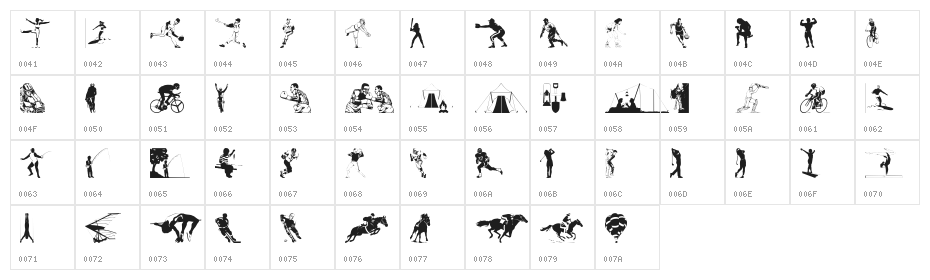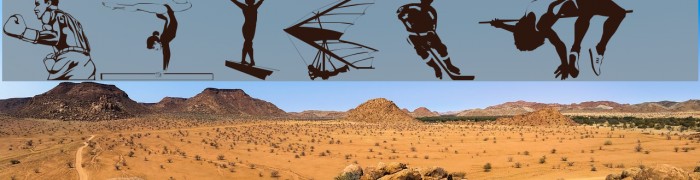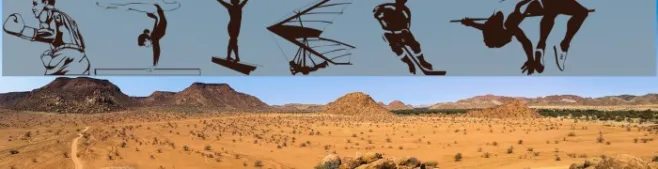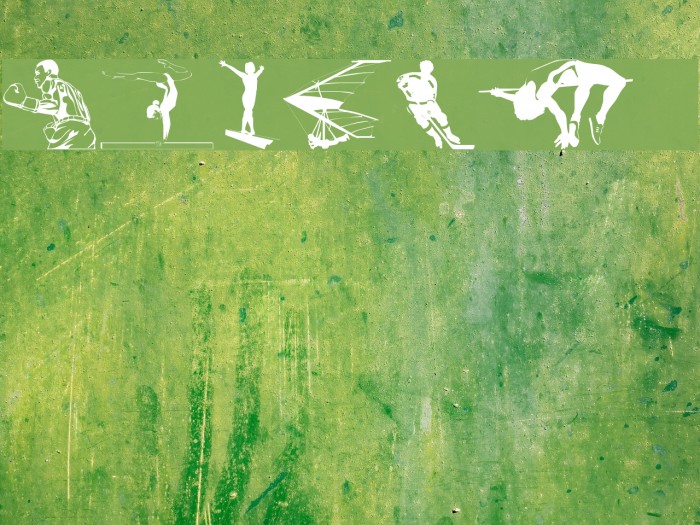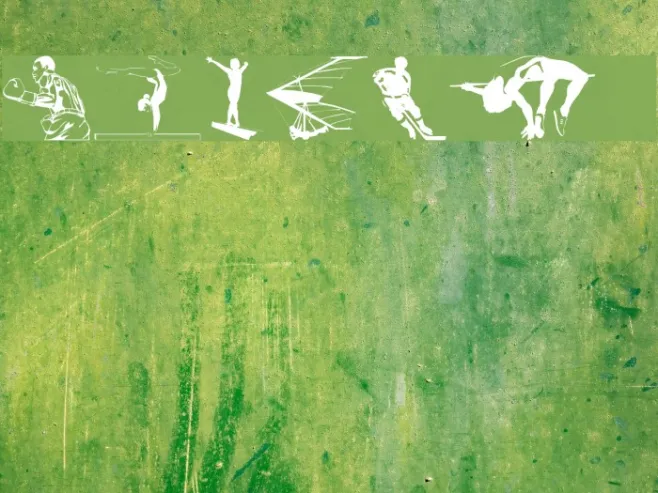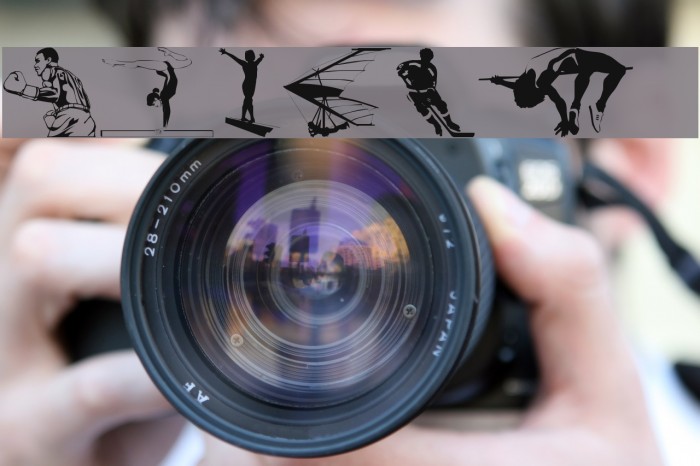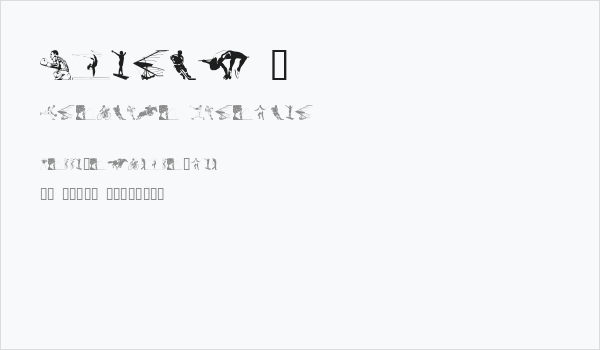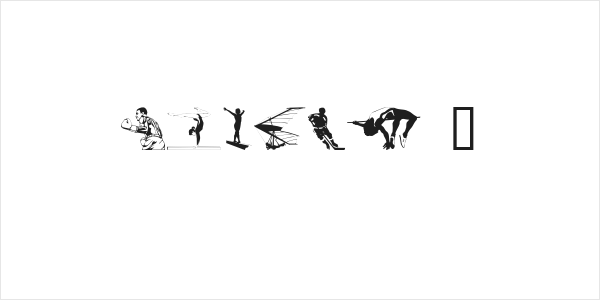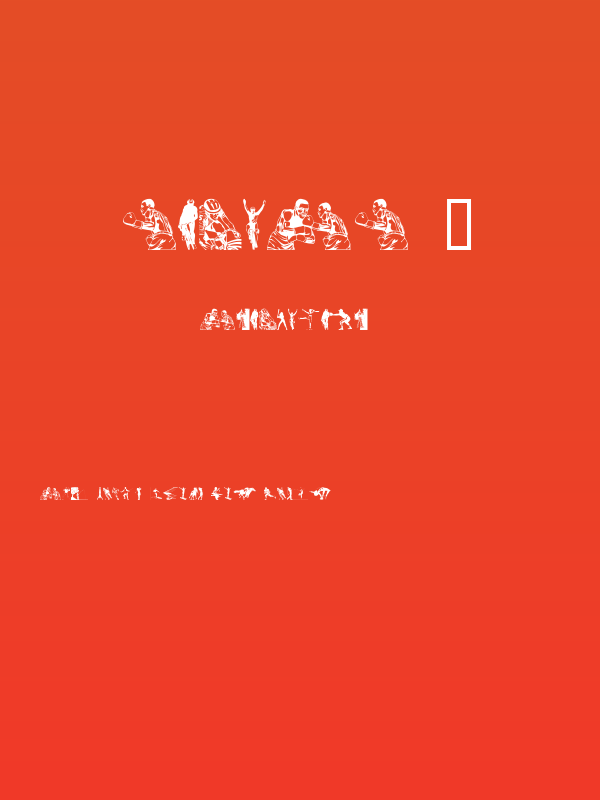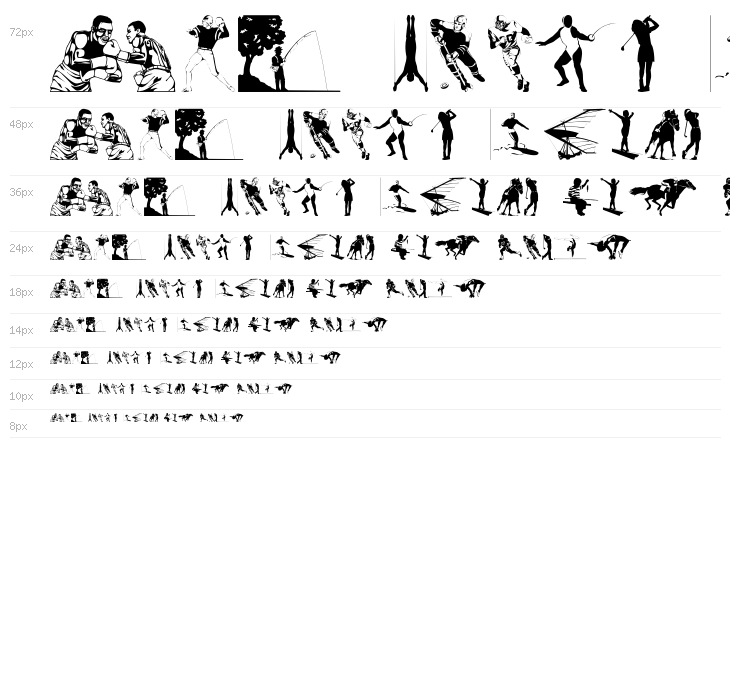
Sports 1 Font
Sports 1 Description
A decorative display font featuring silhouettes of people engaged in various sports and outdoor activities, with each character represented by a unique illustrated scene rather than traditional letterforms.
| Overall Style | Decorative, Playful, Thematic |
| Use Case | Headlines, Posters, Themed graphics |
| Proposed Projects | Event posters, sports-themed invitations, educational materials, children's books, playful branding. |